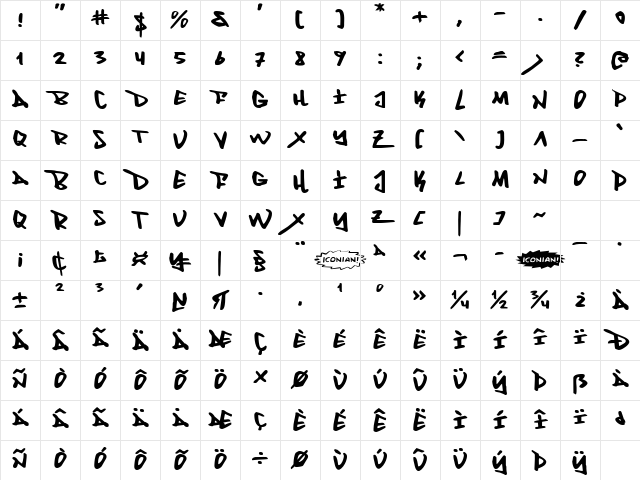
Complete Fantom Expanded glyph index. Displaying only characters natively supported by Fantom Expanded font.
Fantom is a composed and adaptable typeface that performs quietly and consistently across a wide range of design contexts.